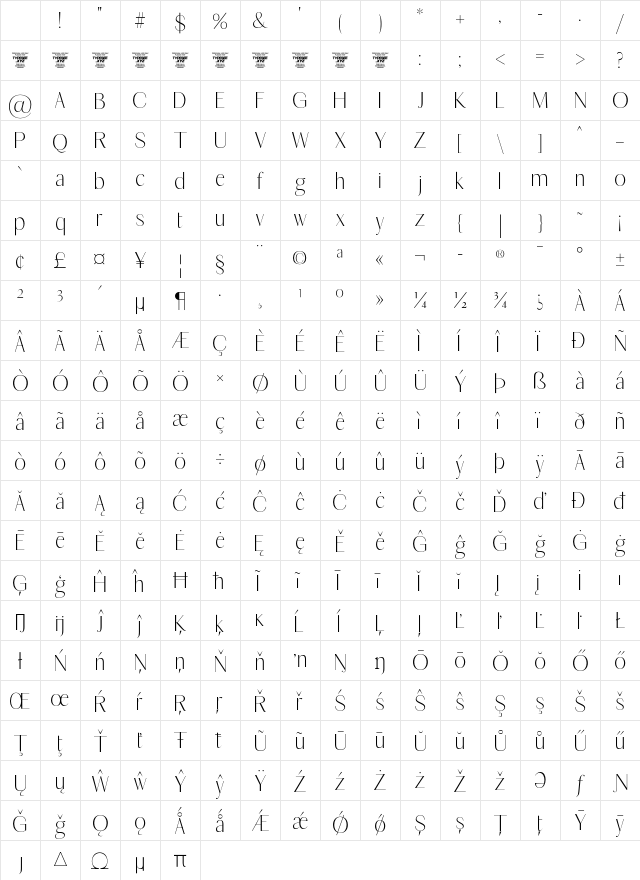
Complete Upstair Sans Regular glyph index. Displaying only characters natively supported by Upstair Sans Regular font.
Upstair Sans is a composed and adaptable typeface that performs quietly and consistently across a wide range of design contexts.